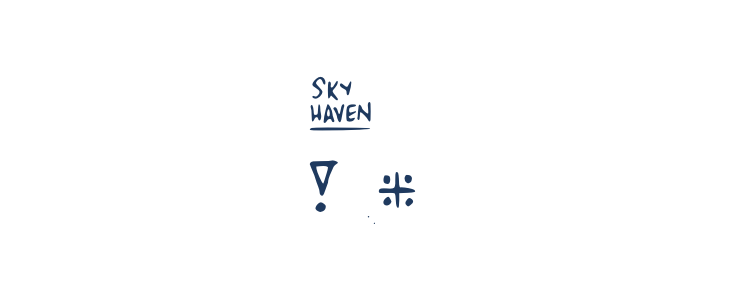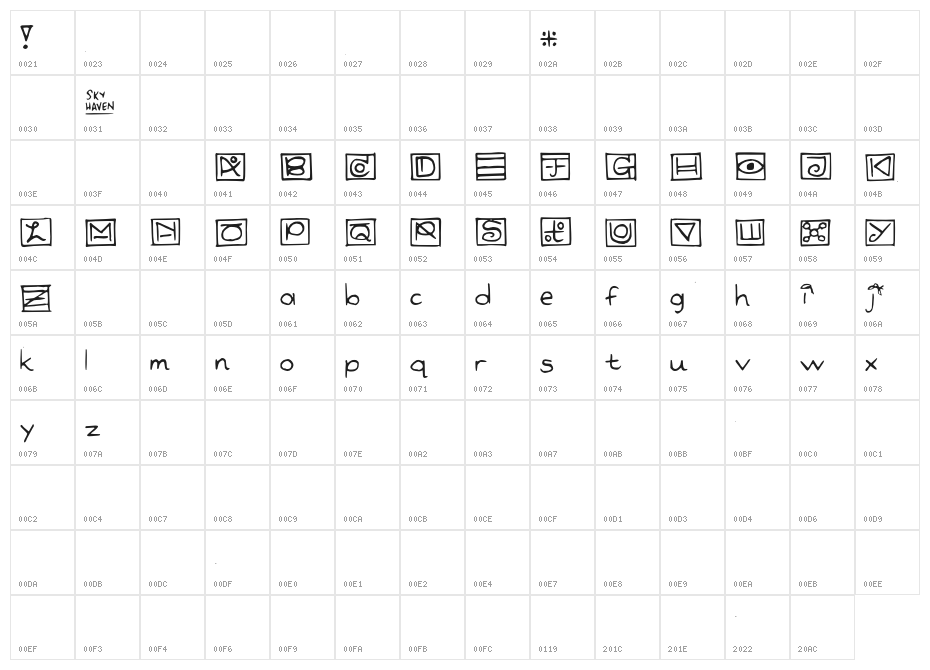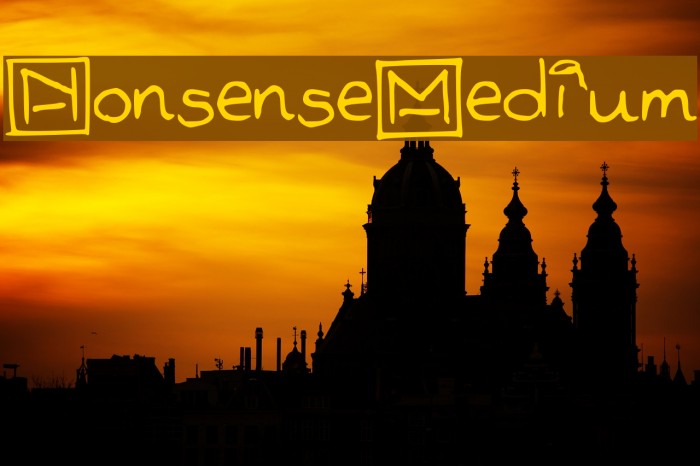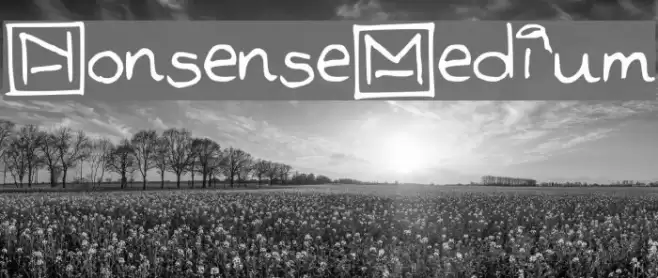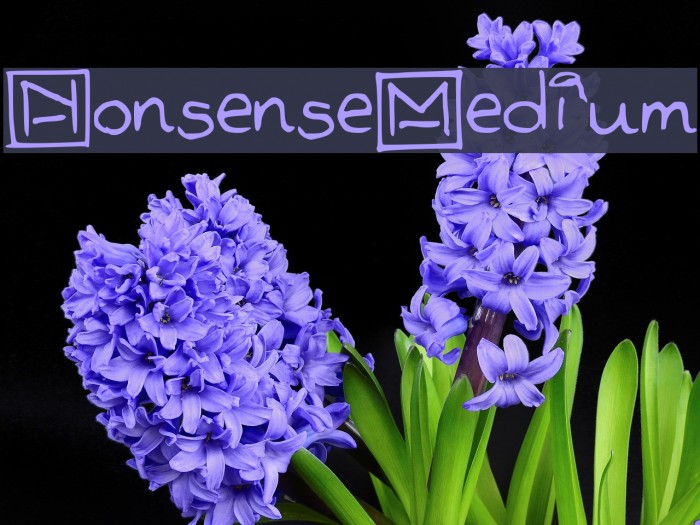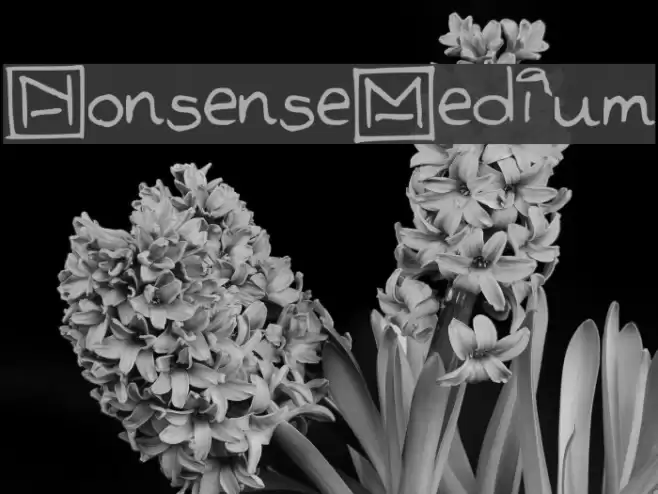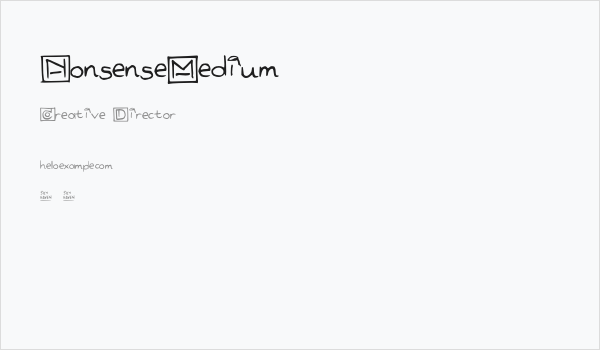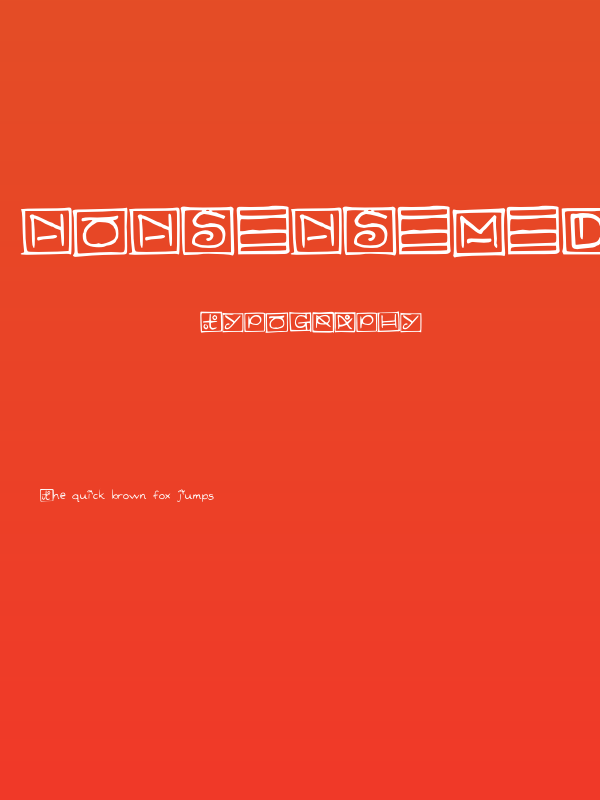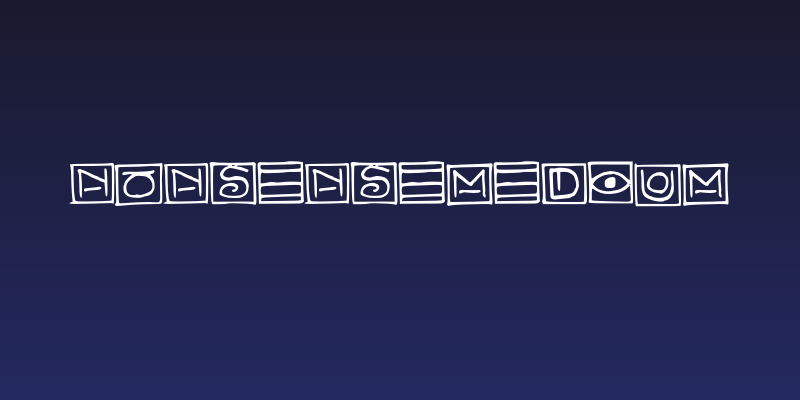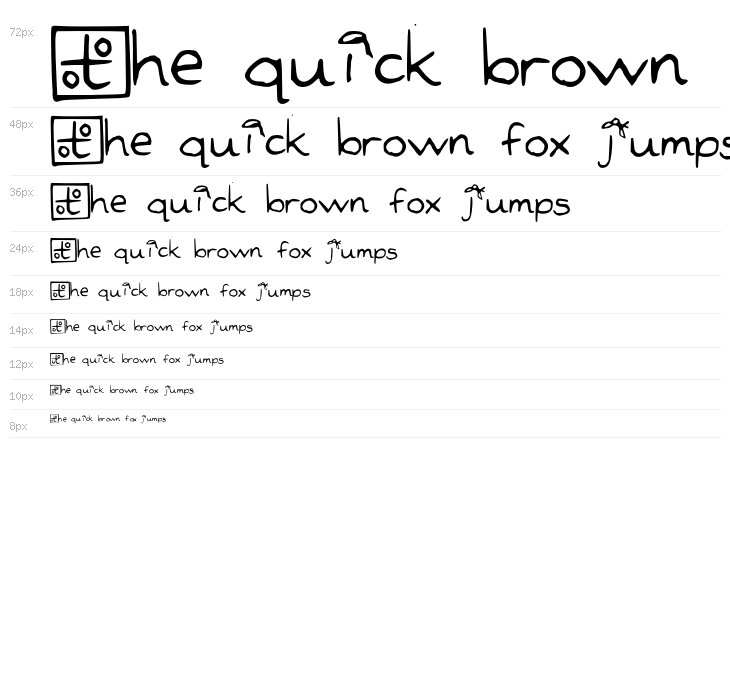
Nonsense-Medium Font
Nonsense-Medium Description
This font features a playful and whimsical style, characterized by its hand-drawn appearance and unique, quirky elements. The uppercase letters are enclosed in square frames, each with distinct decorative patterns, adding a sense of fun and creativity. The lowercase letters maintain a casual, handwritten look with varying stroke thicknesses, giving it an organic feel. The numbers and special characters continue this theme, with imaginative designs that enhance the font's overall playful nature. The font's irregularities and artistic flair make it stand out, perfect for projects that require a touch of individuality and charm.
| Overall Style | Whimsical, Artistic |
| Proposed Projects | Ideal for children's books, creative posters, playful branding, and artistic invitations. |